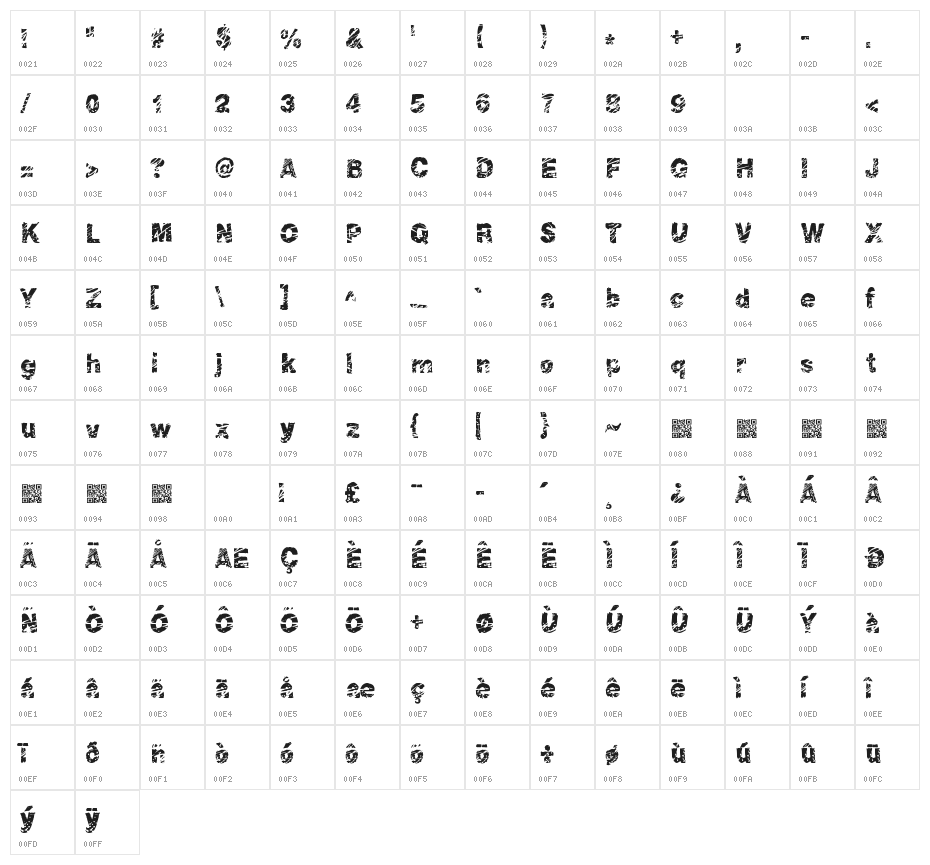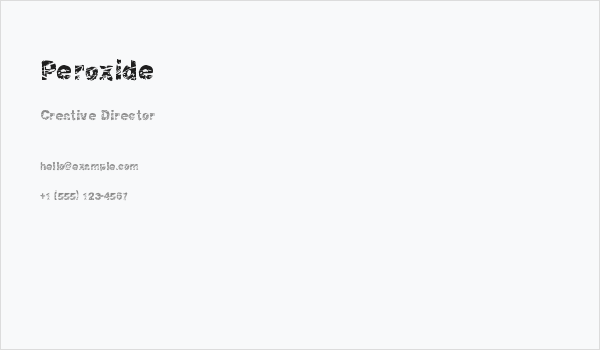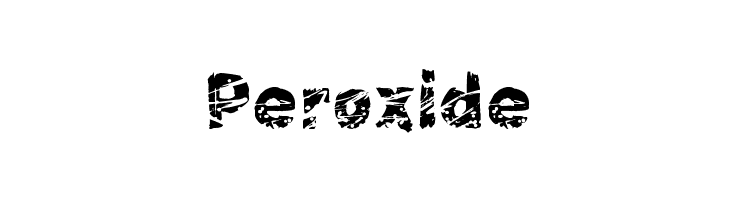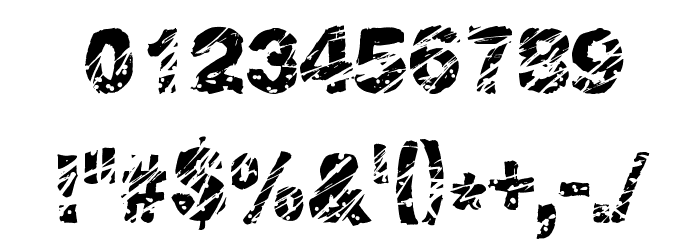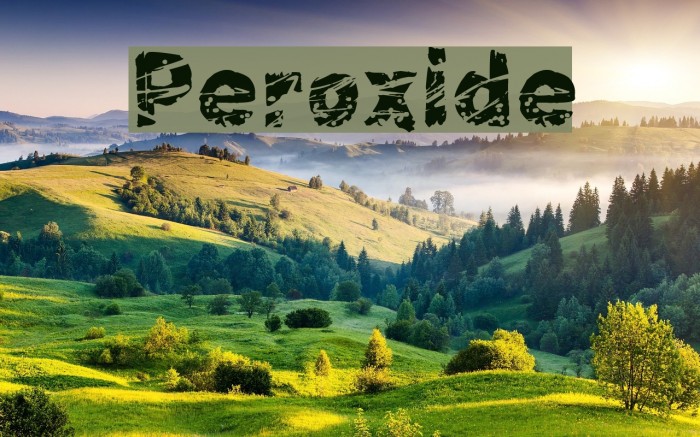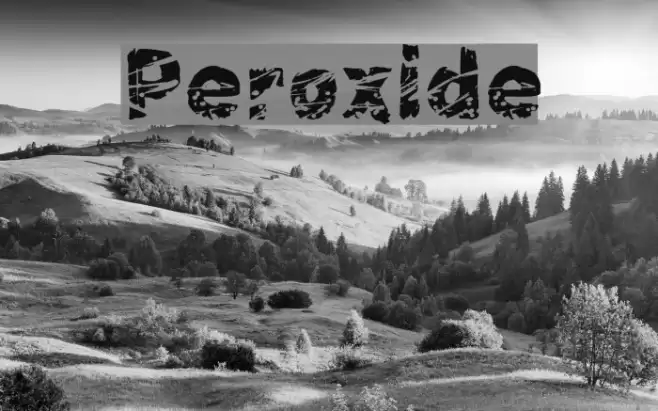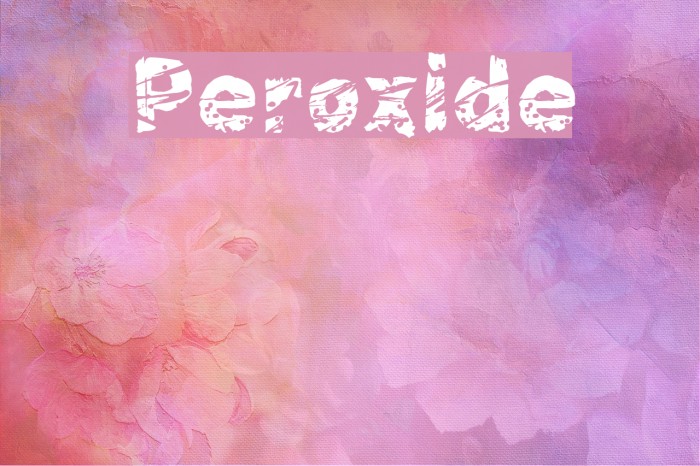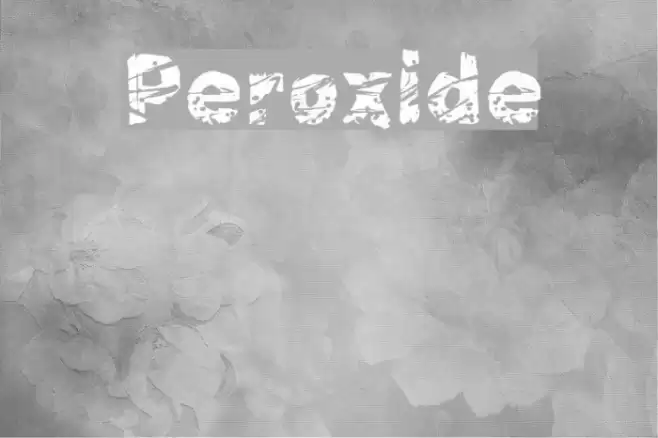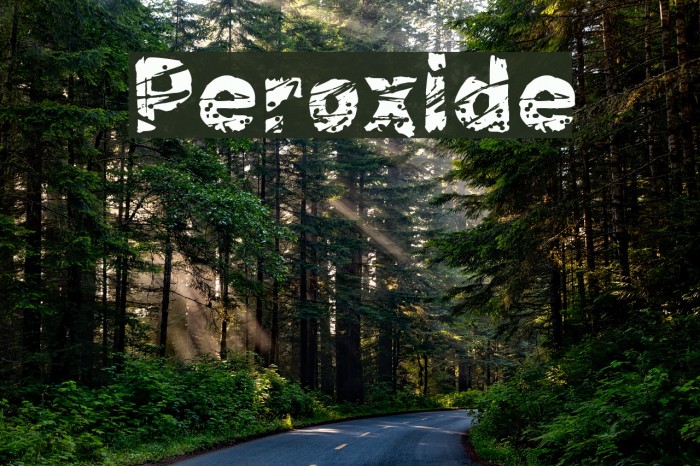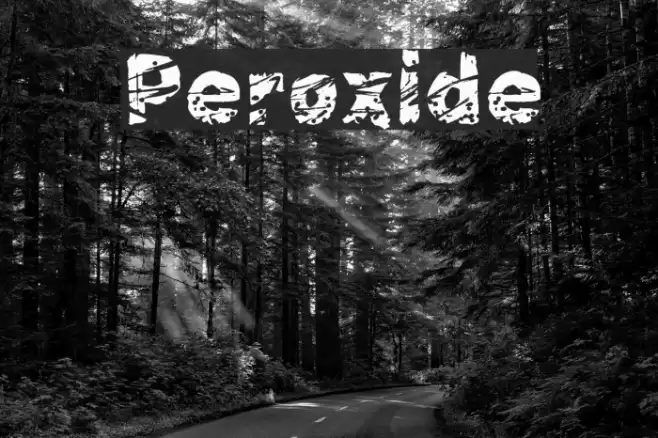
Peroxide Font
Peroxide Description
This font features a bold and distressed style, characterized by its rough, textured appearance that gives it a grunge or urban feel. The letters are uppercase and lowercase, with numbers and special characters, all maintaining a consistent distressed pattern that suggests wear and tear. The design is highly decorative, making it suitable for projects that require a strong visual impact. The irregular edges and varying stroke thicknesses contribute to its dynamic and edgy look, making it ideal for attention-grabbing headlines or artistic designs.
| Overall Style | Grunge, Urban |
| Proposed Projects | Ideal for music album covers, posters, streetwear branding, or any project needing a gritty, urban vibe. |